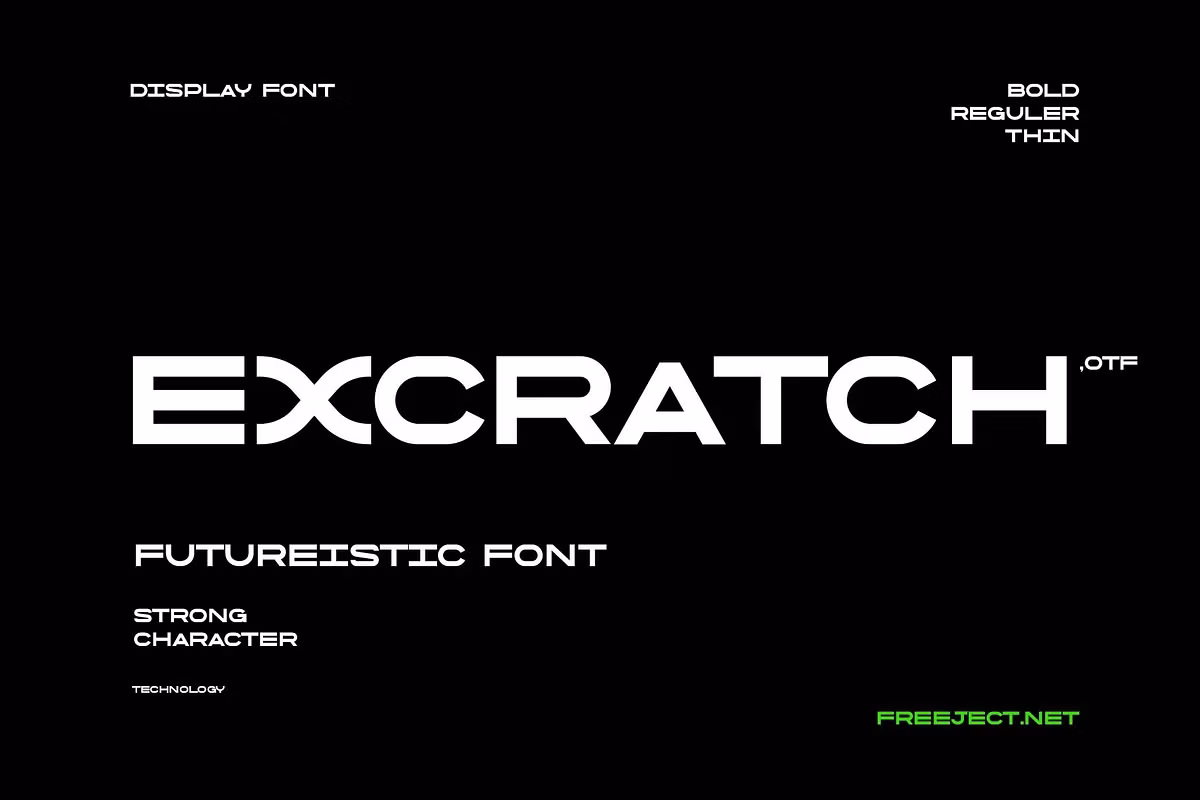
Excratch Futuristic Font is perfect for sci-fi branding projects, technology company logos, futuristic poster design, cyberpunk aesthetic materials, space exploration graphics, digital innovation campaigns, gaming interface design, tech startup materials, virtual reality promotions, artificial intelligence branding, cutting-edge product packaging, and next-generation design applications.
Excratch Futuristic Font is exciting because it embodies the cutting-edge aesthetics and technological innovation of tomorrow through its distinctively futuristic letterforms that capture the essence of advanced digital evolution and space-age design principles. This groundbreaking typeface features sharp, angular characters with technological precision that reflects the rapid advancement of digital culture and the limitless possibilities of future innovation. The font's futuristic aesthetic creates instant connections with audiences who appreciate technological progress, scientific advancement, and the bold vision of humanity's digital future.
Excratch Futuristic Font includes comprehensive font families: Regular Sci-Fi Style, Bold Cyberpunk Weight, Light Digital Touch, Medium Tech Balance, Italic Future Slant, Condensed Space Format, Extended Galaxy Width, Distressed Worn Version, Clean Advanced Alternative, and Special Future Symbols, providing complete solutions for futuristic and technology-focused design projects that envision tomorrow's digital landscape and technological evolution.
This revolutionary typography solution transforms ordinary communications into futuristic experiences through its cutting-edge aesthetic and technologically advanced design language. Excratch Futuristic Font Free Download enables designers and tech brands to access premium futuristic typography that instantly adds innovation, technological sophistication, and next-generation appeal to any creative project. The font's carefully engineered futuristic elements ensure authentic sci-fi character while maintaining excellent readability and distinctive technological presence.
Tech companies, gaming brands, and innovation-focused businesses trust Excratch Futuristic Font for its ability to communicate technological advancement, innovation, and futuristic vision to audiences seeking cutting-edge experiences and next-generation technological solutions. The typeface's advanced construction performs exceptionally well across various applications, from intimate tech communications to large-scale futuristic branding campaigns. Its extensive character support includes multilingual capabilities and sci-fi design elements that enhance technological brand presentations.
The creative inspiration behind Excratch Futuristic Font draws from science fiction aesthetics, space exploration imagery, and the endless possibilities of technological advancement that continue to reshape our digital future. This innovation-focused approach creates a font that feels genuinely futuristic while maintaining contemporary functionality across different technological contexts and sci-fi brand expressions.
Whether creating tech startup identities, sci-fi entertainment materials, or futuristic marketing campaigns, this font delivers exceptional results that capture the essence of technological innovation and digital evolution. Download Excratch Futuristic Font today and discover how premium futuristic typography can transform your design projects into visionary expressions of technological advancement, digital innovation, and the limitless possibilities that define humanity's exciting journey into the future.